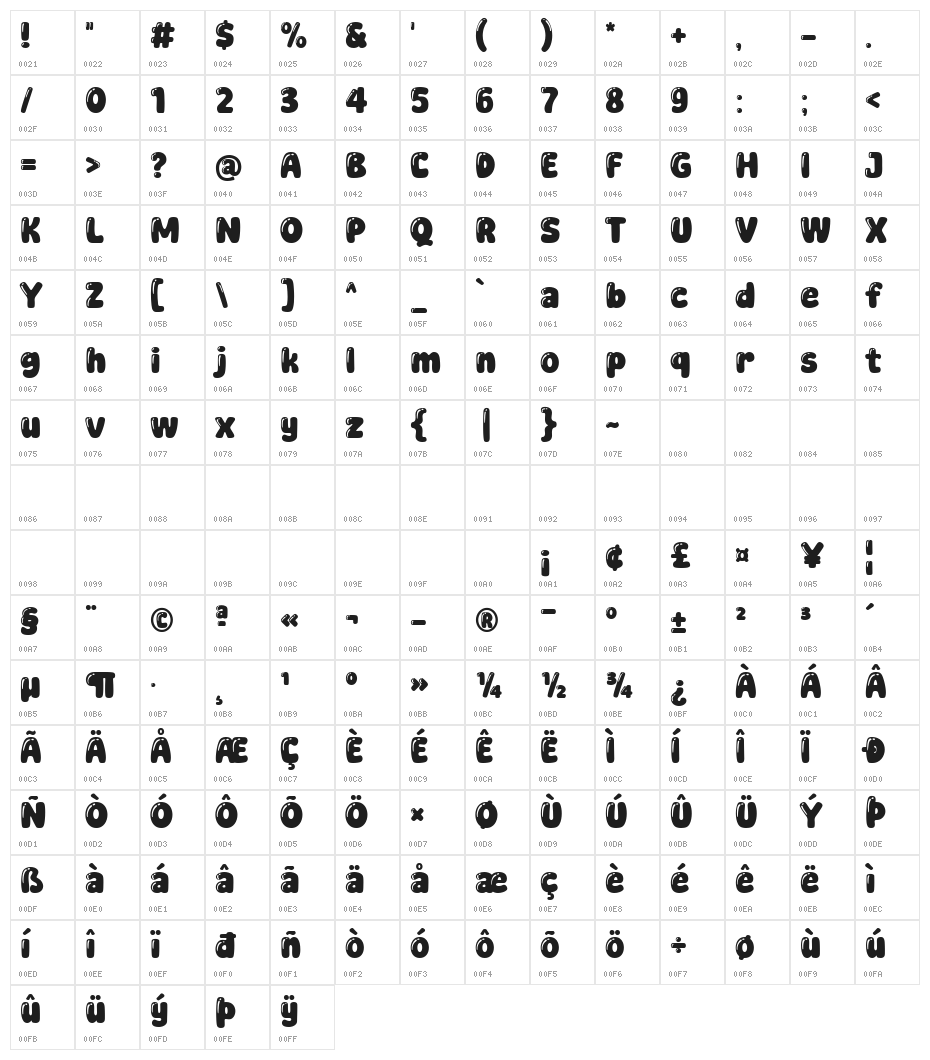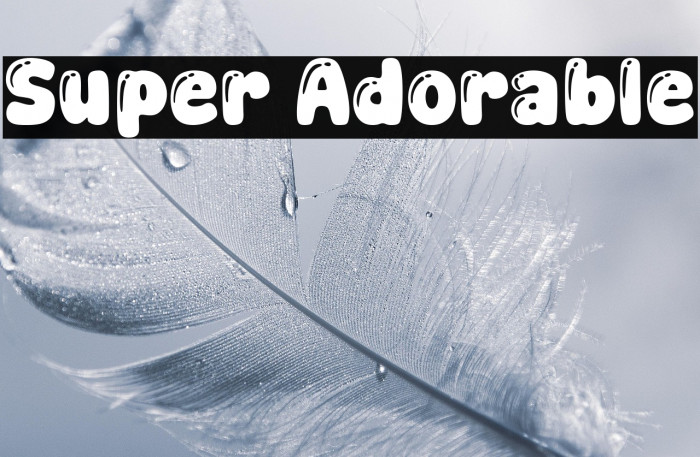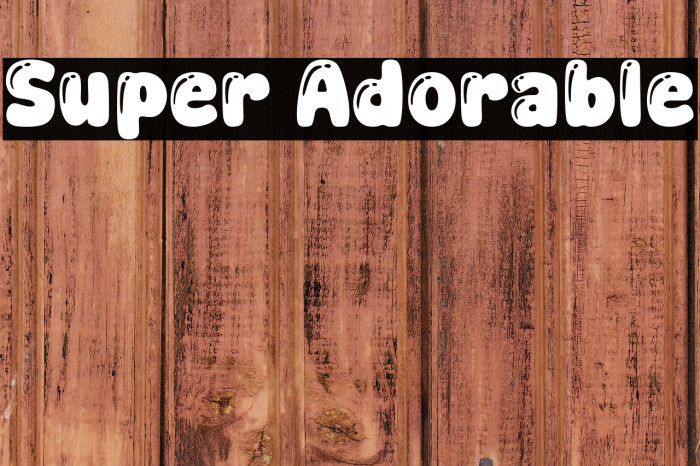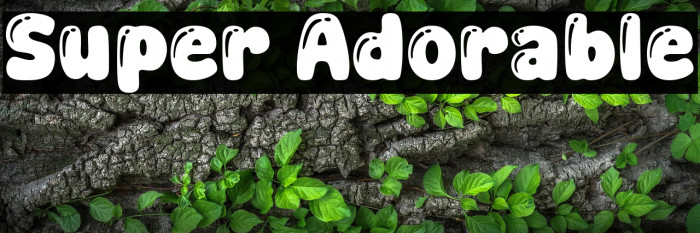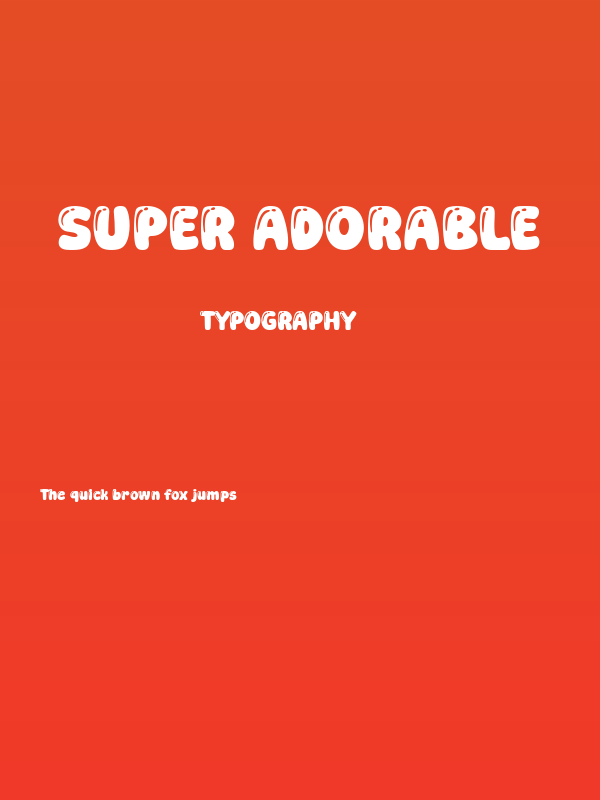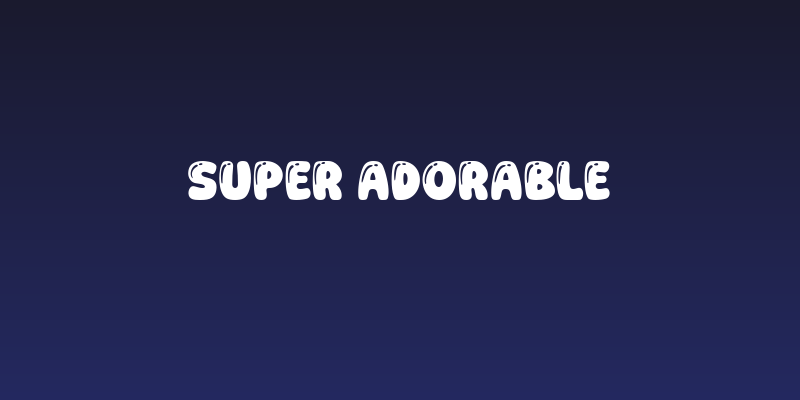
Super Adorable Font
| Gesamtstil | Playful, Whimsical |
| Vorgeschlagene Projekte | Ideal for children's books, playful branding, party invitations, and creative posters. |